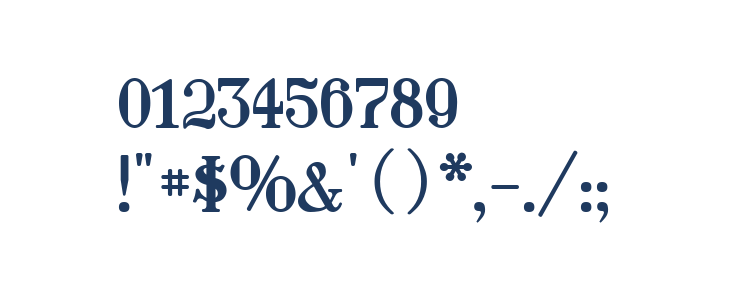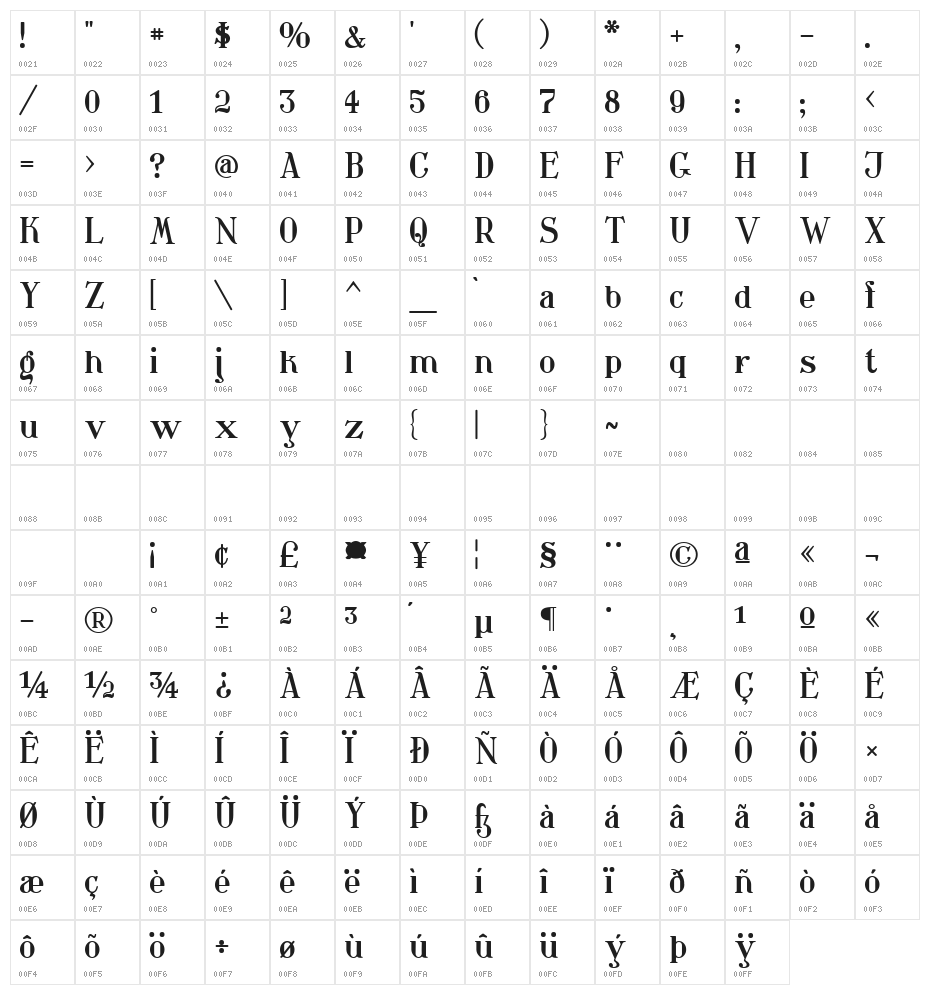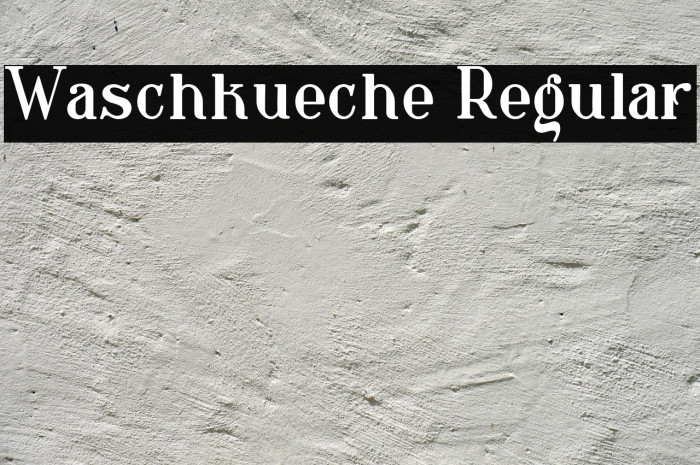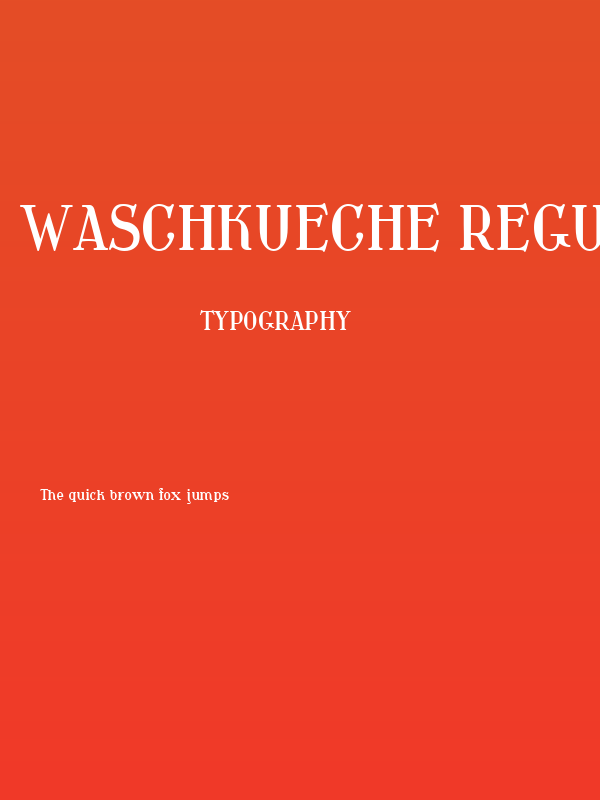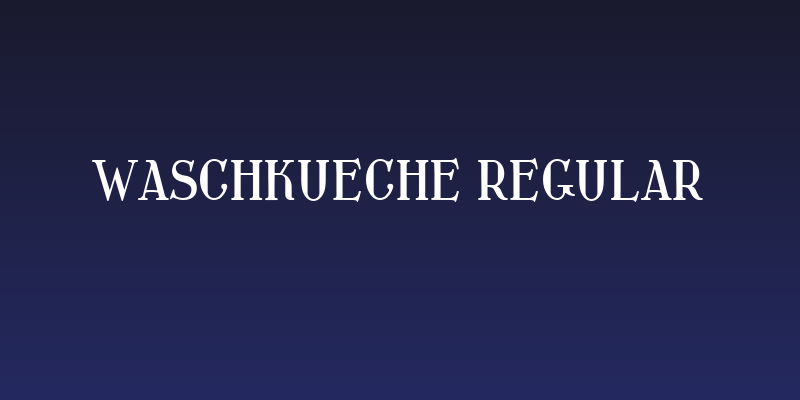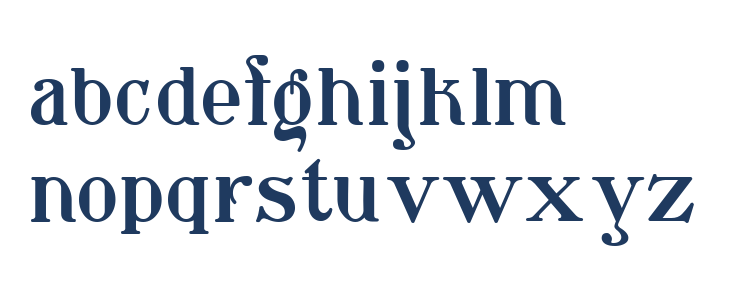
Waschkueche Regular Font
Waschkueche Regular Description
This font features a unique blend of traditional and modern elements, characterized by its distinct serif style. The uppercase letters exhibit a strong presence with slightly curved serifs, giving them a classic yet approachable feel. The lowercase letters maintain a consistent style, with some characters like 'g' and 'y' showcasing elegant loops. Numbers are bold and clear, ensuring readability. Special characters are designed with a similar attention to detail, making them stand out while maintaining harmony with the rest of the font. Overall, this font combines a vintage aesthetic with modern readability, making it versatile for various design needs.